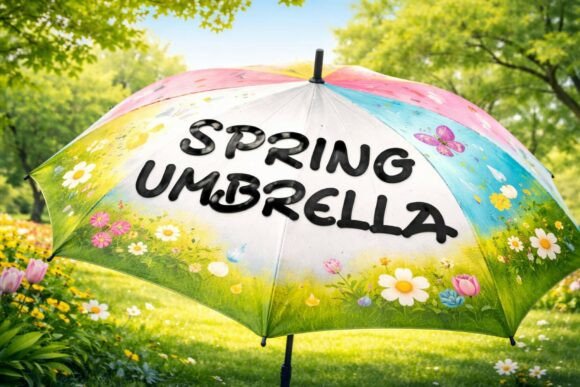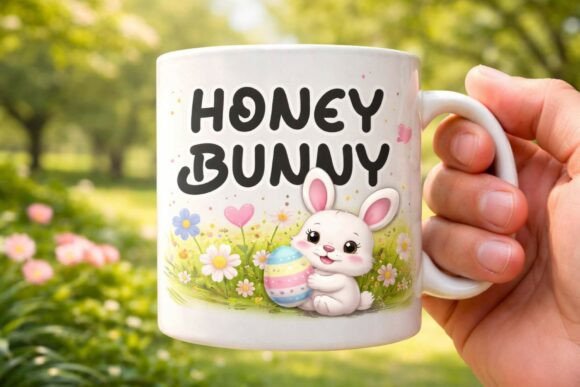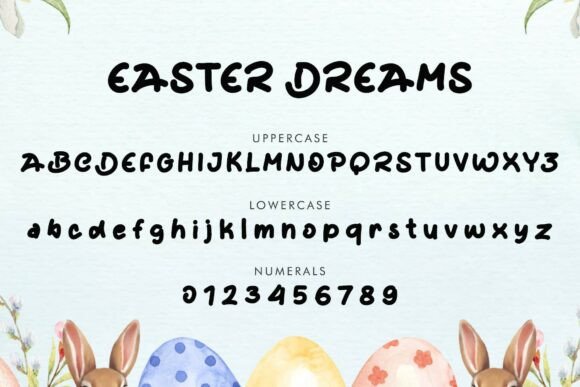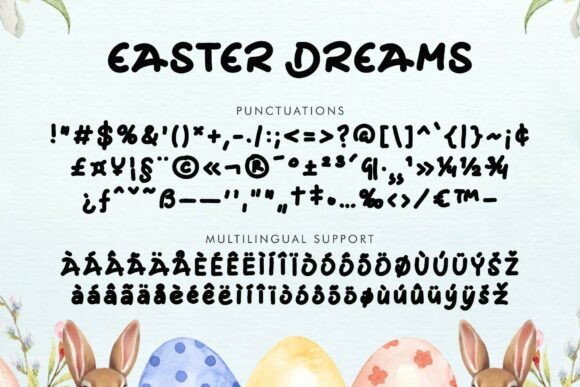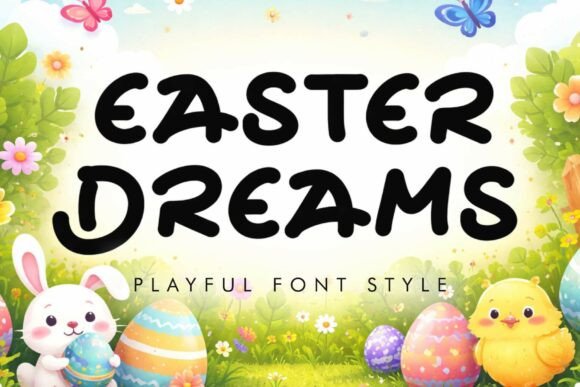
Easter Dreams Font: Elevate Your Designs with Elegance and Versatility
Are you a designer or crafter looking for a font that can add a touch of elegance and sophistication to your Easter-themed designs? Look no further than the Easter Dreams Font. This unique and elegant display font is perfect for creating stunning designs for Easter, summer, spring, and other holidays and celebrations.
What is Easter Dreams Font?
Easter Dreams Font is a carefully crafted display font that features uppercase and lowercase letters, numerals, punctuations, and multilingual support. Its elegant and refined design makes it perfect for creating beautiful banners, posters, logos, and other visual materials.
Key Features of Easter Dreams Font
- Uppercase and Lowercase Letters: The font features both uppercase and lowercase letters, allowing you to create designs with a mix of bold and subtle text.
- Numerals and Punctuations: The font includes a range of numerals and punctuations, making it perfect for creating designs that require numerical information or special characters.
- Multilingual Support: The font supports multiple languages, allowing you to create designs for a global audience.
Perfect for Various Occasions
Easter Dreams Font is not just limited to Easter-themed designs. Its versatility makes it perfect for a range of occasions, including:
- Summer and Spring: Create stunning designs for summer and spring with a font that evokes feelings of warmth and sunshine.
- Easter: Add a touch of elegance to your Easter designs with a font that is specifically designed for the occasion.
- Vacations and Holidays: Use Easter Dreams Font to create beautiful designs for vacations and holidays, such as Christmas, Halloween, and more.
- Back to School: Create eye-catching designs for back to school with a font that is both fun and elegant.
- Patriotic Prints: Use Easter Dreams Font to create stunning patriotic prints for special occasions.
- Branding and Mother’s Day: Add a touch of sophistication to your branding and Mother’s Day designs with a font that is both elegant and refined.
- Patrick’s Day and Teacher’s Day: Create beautiful designs for Patrick’s Day and Teacher’s Day with a font that is perfect for special occasions.
Why Choose Easter Dreams Font?
So why choose Easter Dreams Font for your design needs? Here are just a few reasons:
- Unique and Elegant Design: The font features a unique and elegant design that will add a touch of sophistication to your designs.
- Versatile: The font is perfect for a range of occasions and can be used to create a variety of designs.